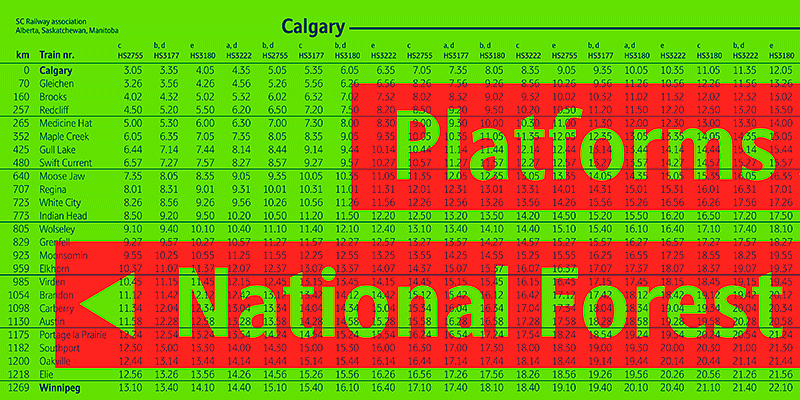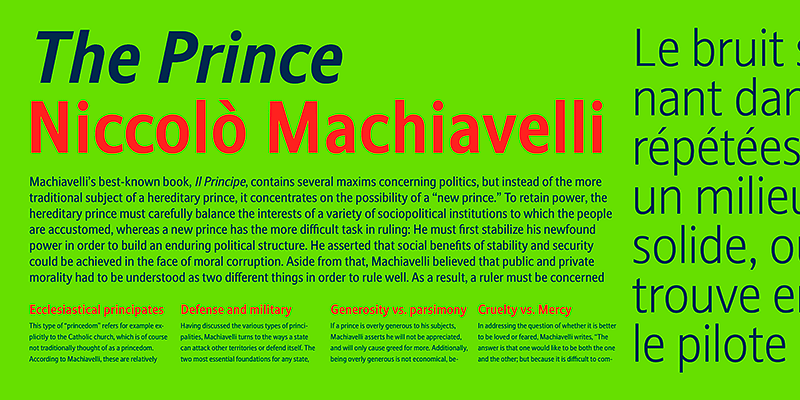
Stroudley was designed for signage, but with structures carefully crafted to save space and provide the highest possible legibility, it can also confidently assist in any fiendish design problem.